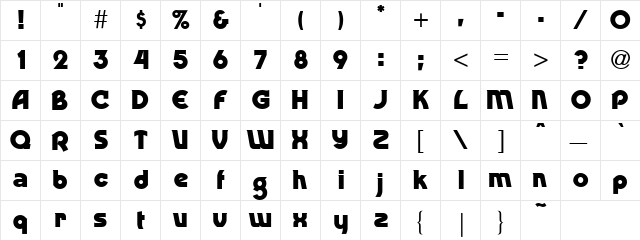
Crenshaw Bold Font Preview
Crenshaw Bold
Crenshaw Bold Font Details
Design Context for Crenshaw Typeface
Crenshaw takes a measured approach to typography — its balanced proportions and neutral character make it a reliable workhorse for both digital and print work. Its bold stroke weight gives it real presence on the page.